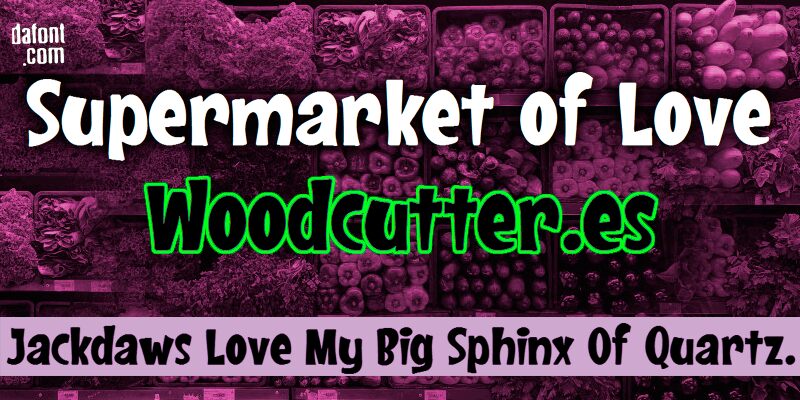
Supermarket of Love
Supermarket of Love font by Woodcutter is a free display font whose cartoon style shines through in all of its curved letters and characters. The design where clearness and creativity are perfectly balanced offers a feel that’s lively, friendly, informal in tone, and whimsically charming thanks to a retro inspiration.
This bold collection can add gently playful wording to food packages, drinks labels, collectibles packaging designs, book covers for children, storyboards typography for comics or cartoons as well as advertising material headlines. Use it also in movie posters and website headings.